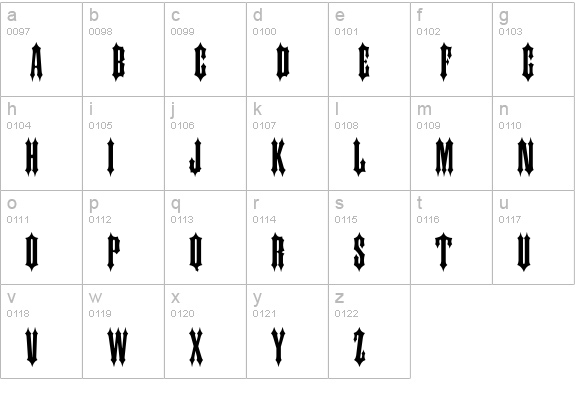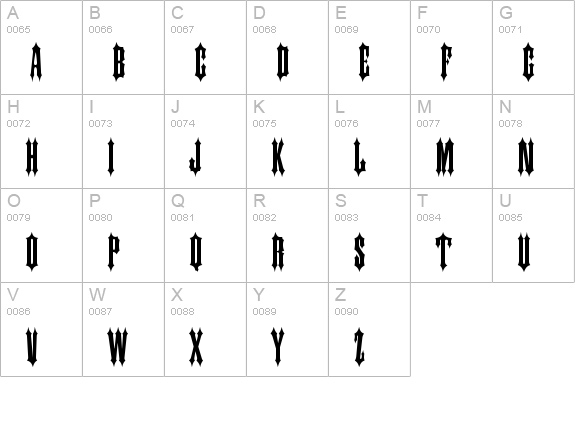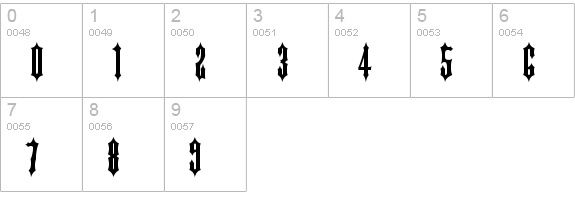
Introducing Ironwood, a bold and powerful font that exudes strength and confidence. With its sharp edges and commanding presence, Ironwood is perfect for creating designs that demand attention. Whether you're working on a logo, a poster, or a headline, this font will make your message stand out. Ironwood is a versatile typeface that can be used for a variety of projects. Its clean and modern design makes it suitable for both digital and print applications. From website headers to book covers, Ironwood will bring a touch of elegance and professionalism to any design. What sets Ironwood apart is not just its distinct style, but also the fact that it is available for free. Yes, you read that right! Ironwood can be freely downloaded at FontsMarket.com. This means that you can enjoy all the benefits of this premium font without having to spend a dime. Downloading Ironwood is quick and easy. Simply visit FontsMarket.com, locate the Ironwood font, and click the download button. Within seconds, you'll have access to this exceptional font and be ready to unleash your creativity. Don't miss out on the opportunity to enhance your designs with Ironwood. Download it for free at FontsMarket.com and discover the impact it can make on your next project. Whether you're a professional designer or an aspiring creative, Ironwood is a font that will truly elevate your work.